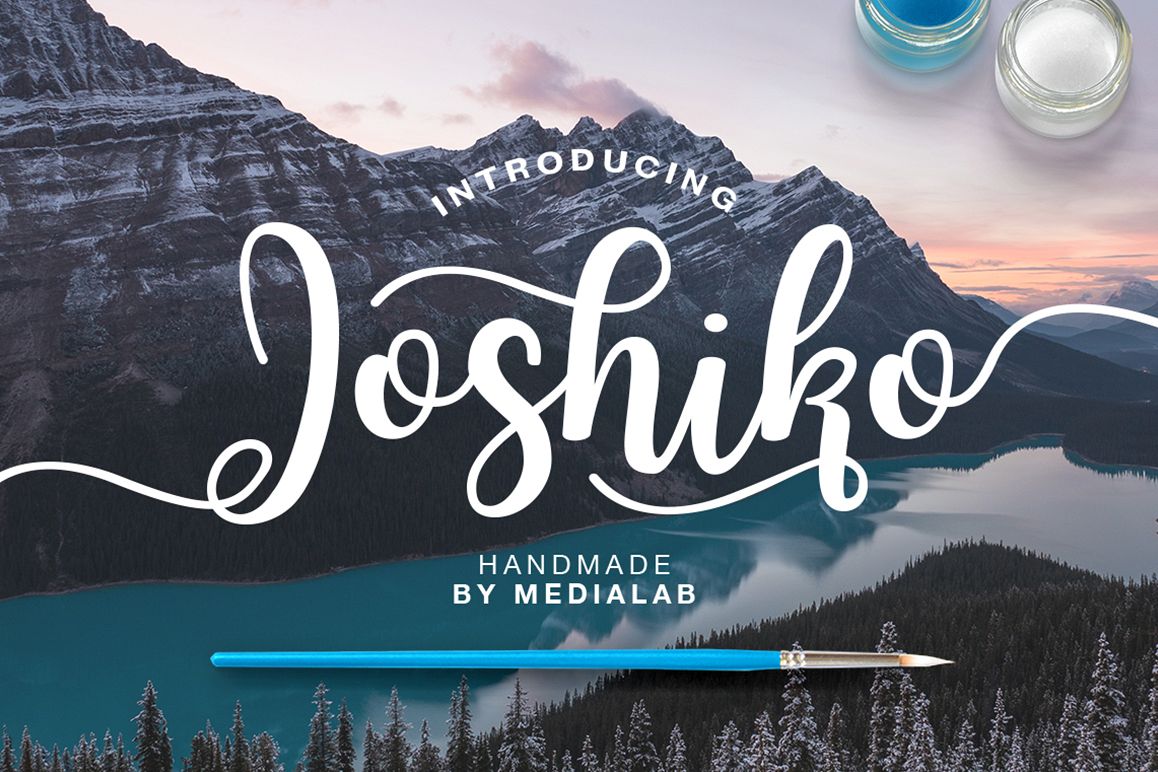
Joshiko handwritten script
Joshico - a new fresh handmade calligraphy font. Very suitable for greeting cards, branding materials, business cards, quotes, posters, and more!
Joshico - includes many alternative characters.
How it works? Write below
• -angela
• Jacob-
• -carolina-
• -jv-